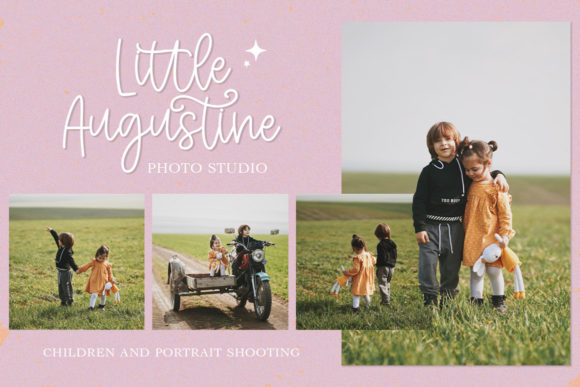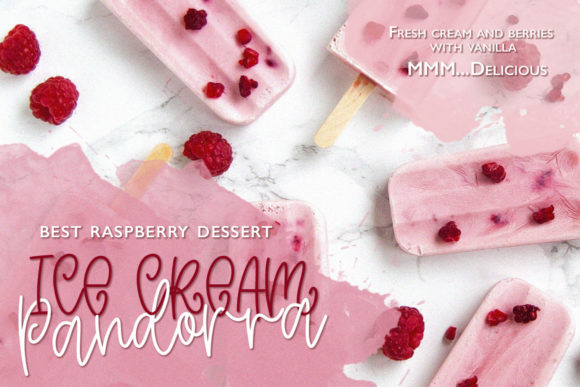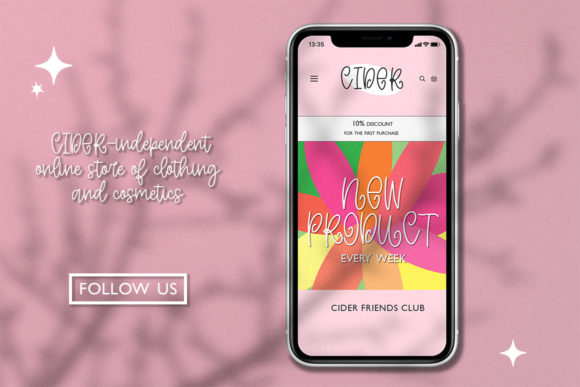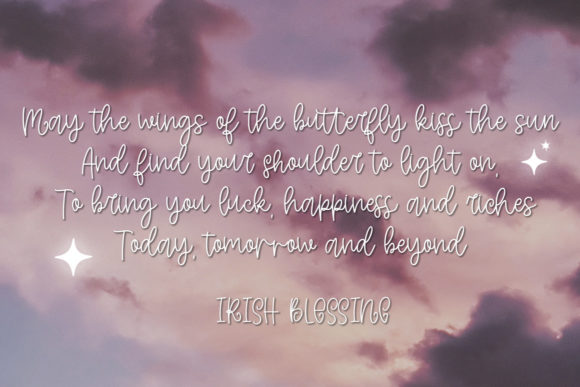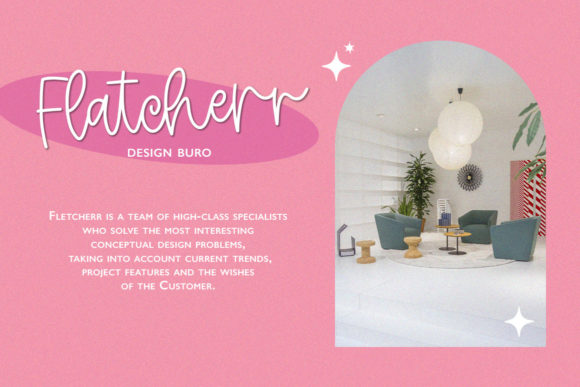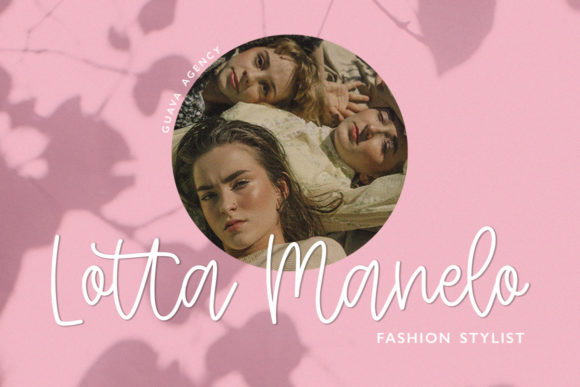
Discover the Elegance of Dear Polly Font: Elevate Your Design Projects with Luxury and Sophistication
Are you on the hunt for a font that adds a touch of luxury and sophistication to your design projects? Look no further than the Dear Polly font. This beautiful, light handwritten font is making waves in the design community with its unique feel and stunning impact. In this article, we’ll dive into the world of Dear Polly, exploring its features, benefits, and uses, and why it’s becoming a favorite among designers and crafters alike.
The Unique Charm of Dear Polly Font
Dear Polly is a beautiful and light handwritten font with a unique feel and a stunning impact. It will add a luxury spark to any design project that you wish to create. The font’s elegant and refined aesthetic makes it perfect for a wide range of applications, from branding and packaging to wedding invitations and digital marketing materials.
One of the standout features of Dear Polly is its versatility. The font’s light and airy texture makes it easy to read, even at smaller sizes, while its unique character variations add a touch of personality to any text. Whether you’re looking to create a bold statement or a subtle whisper, Dear Polly has the flexibility to adapt to your design needs.
Features and Benefits of Dear Polly Font
So, what makes Dear Polly font so special? Here are just a few of its key features and benefits:
- Unique and elegant design: Dear Polly’s handcrafted design gives it a distinctive and luxurious feel that’s sure to elevate your design projects.
- Light and airy texture: The font’s light texture makes it easy to read, even at smaller sizes, and adds a touch of sophistication to any text.
- Versatile and flexible: Dear Polly is perfect for a wide range of applications, from digital marketing materials to print projects and beyond.
Uses of Dear Polly Font
So, how can you use Dear Polly font in your design projects? The possibilities are endless! Here are a few ideas to get you started:
- Branding and packaging: Add a touch of luxury to your brand with Dear Polly’s elegant and refined aesthetic.
- Wedding invitations and stationery: Make your wedding invitations and stationery truly special with Dear Polly’s beautiful and unique design.
- Digital marketing materials: Elevate your digital marketing materials, such as social media graphics and email newsletters, with Dear Polly’s sophisticated and modern feel.
- Crafting and DIY projects: Add a personal touch to your crafting and DIY projects, such as handmade cards and gift tags, with Dear Polly’s charming and whimsical design.
Tips for Using Dear Polly Font
To get the most out of Dear Polly font, here are a few tips to keep in mind:
- Use it sparingly: Dear Polly’s unique design is best used sparingly, as a headline or title font, to add a touch of luxury and sophistication.
- Pair it with complementary fonts: Pair Dear Polly with complementary fonts, such as sans-serif fonts, to create a visually appealing contrast.
- Experiment with colors and textures: Don’t be afraid to experiment with different colors and textures to add depth and interest to your design.